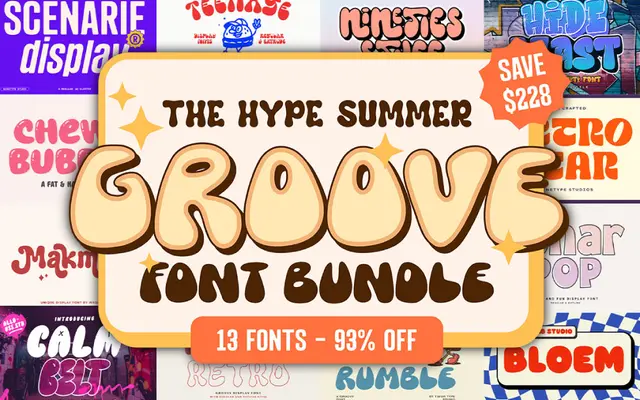
The Hype Summer Groove Font Bundle
A bundle of 20 retro-inflected display fonts from Prioritype, spanning bubble lettering, blocky styles, outlines and extrude variants aimed at merchandise and social graphics.
Released in April 2024, the bundle collects 20 decorative styles under a single licence, covering groovy 70s curves, blocky extrude cuts, outlines and hand-drawn forms. The range is broad rather than deep, with most subfamilies offered as single weights or paired with a stylistic variant such as an outline or extrude version. Files ship in OTF, TTF and WOFF formats, making the bundle workable for print, web and basic branding applications.
A bundle of 20 decorative display styles spanning retro, bubble, funky and groovy aesthetics; no single classification applies across the collection, but display is the dominant intent throughout.